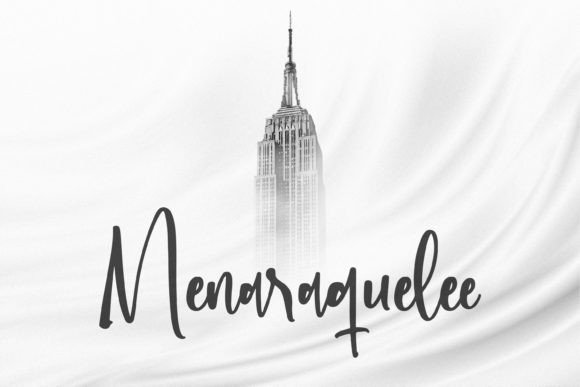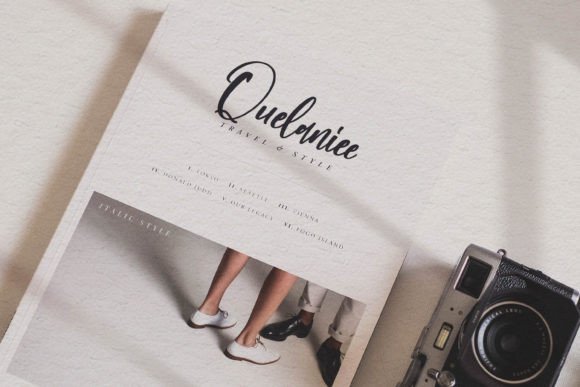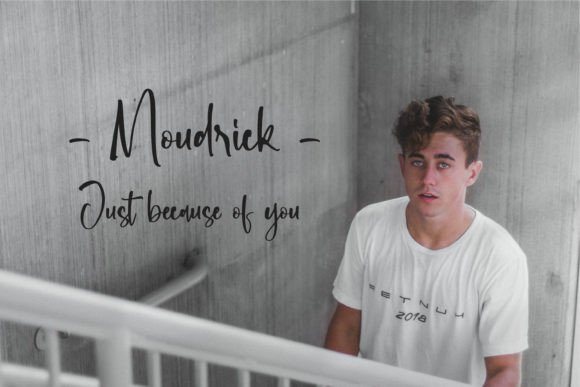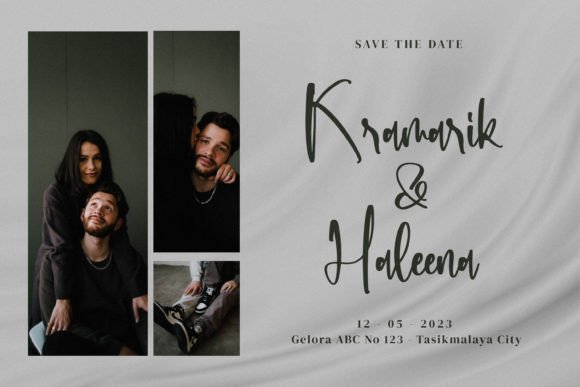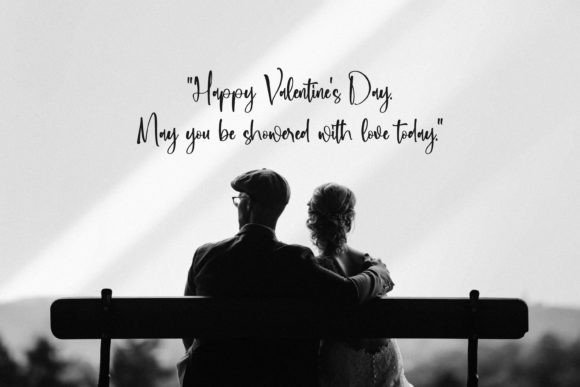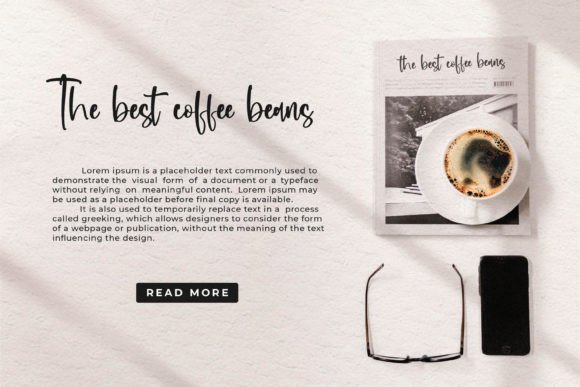
Introduction to Greeneqa Font
Greeneqa is a modern and stylish handwritten script font.
Its trendy and contemporary look is perfect for fashion branding, logos, luxurious packaging, and more .